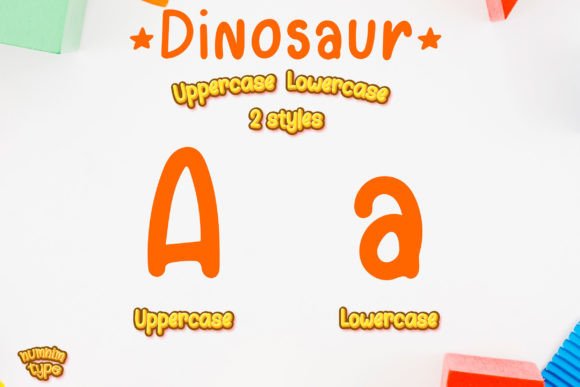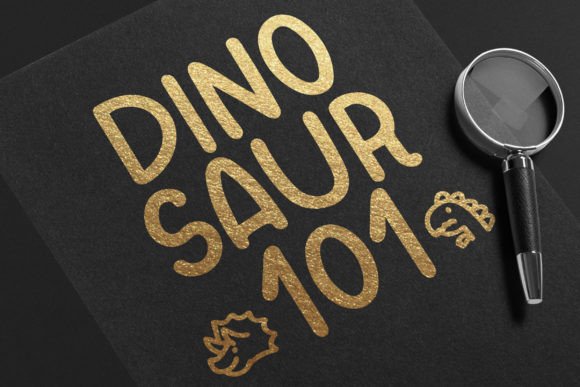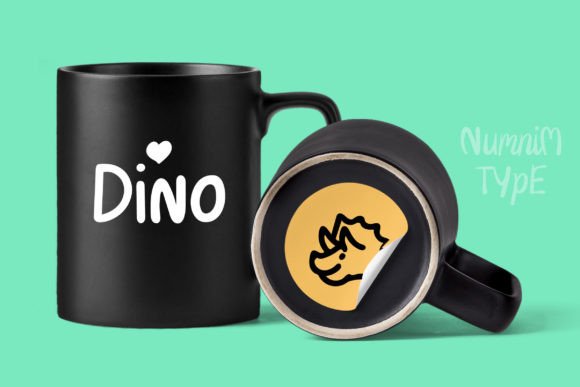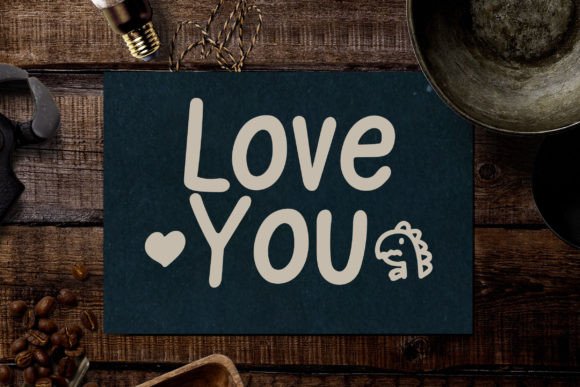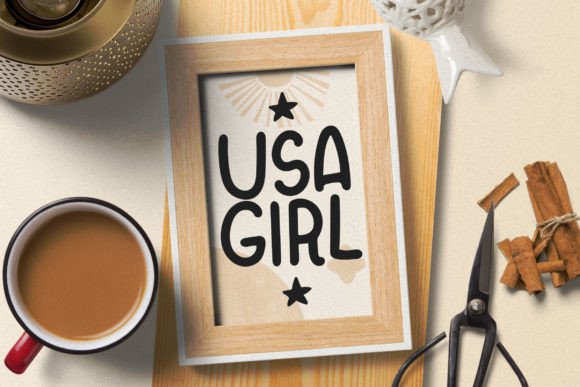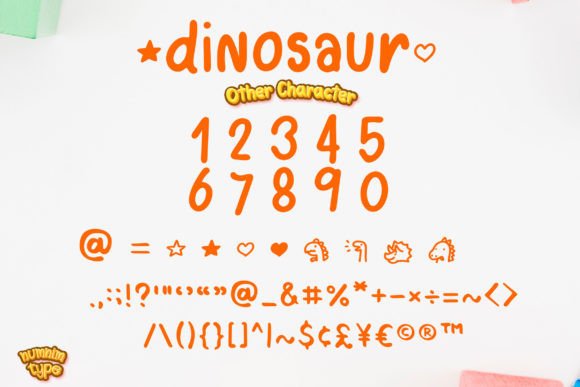
The Ultimate Dinosaur Font Guide: Unleashing Creativity with a Roar
I’ll never forget the time I was working on a fun project for a kids’ dinosaur-themed party. I had all the design elements ready, but I was stuck on finding the perfect font. That’s when I stumbled upon the Dinosaur Font, and it was love at first sight! 🎉 Its playful and cute handwritten style instantly captured the essence of the project, and I knew I had found my perfect match.
- ✅ Unique and playful character set that’s perfect for kids’ projects, stickers, mugs, and more
- ✅ Fun and quirky design that adds a personal touch to any project
- ⚠️ Some users might find the font a bit too playful for certain professional projects
- ⚠️ Limited use of uppercase letters, which might not be ideal for all designs
The Dinosaur Font was created with the intention of capturing the playful and adventurous spirit of the prehistoric era. The designer, inspired by the world of dinosaurs and childhood imagination, crafted a font that would bring a smile to anyone’s face. With its unique character set and PUA encoding, Dinosaur Font has become a favorite among designers and crafters alike.
Q: Is Dinosaur Font suitable for professional designs?
A: While Dinosaur Font has a playful personality, it might not be suitable for all professional designs. However, it can be a great choice for projects that require a touch of whimsy and fun, such as children’s book illustrations or event branding.